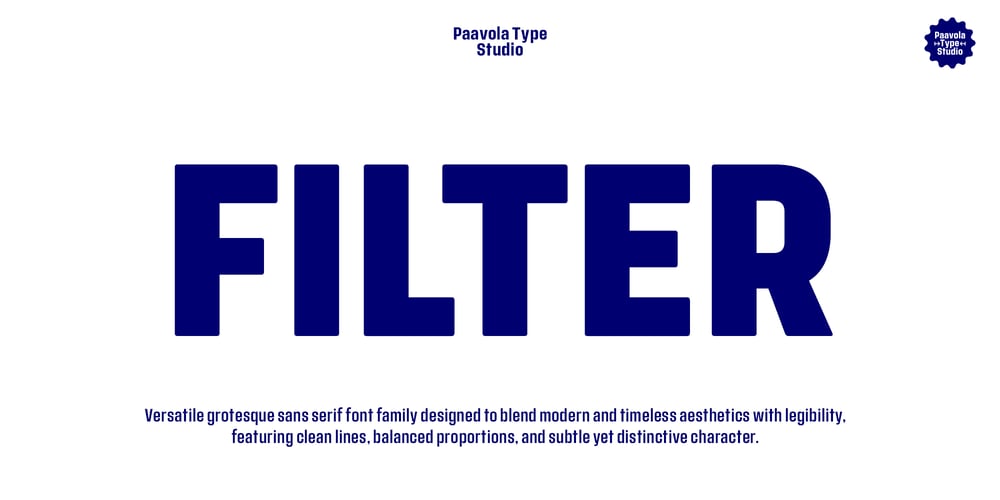
PT Filter Font Family was designed by Jani Paavola and published by Paavola Type Studio. PT Filter contains 30 styles and family package options. PT Filter is a striking and versatile grotesque sans serif font family designed to blend modern aesthetics with timeless legibility. Perfect for a wide range of design projects, PT Filter stands out with its clean lines, balanced proportions, and subtle yet distinctive character. PT Filter features a streamlined, geometric structure that offers a contemporary look, ideal for digital and print media.With multiple weights and widths, PT Filter adapts effortlessly to various applications, from bold headlines to readable body text.The font maintains excellent readability at all sizes, making it perfect for user interfaces, signage, and branding.PT Filter draws inspiration from the classic grotesque typefaces of the early 20th century, reimagined with modern design principles. The font balances the mechanical precision of its geometric shapes with organic touches, creating a harmonious and approachable typeface.PT Filter is suitable for various uses:Branding: Create a strong and memorable brand identity with PT Filter’s bold and clean design.Editorial Design: Enhance the aesthetics of magazines, brochures, and books with its versatile styles.Web and App Design: Improve user experience with a highly readable and visually appealing font.Signage and Wayfinding: Ensure clarity and impact in public spaces with PT Filter’s legibility and striking presence.Embrace the future of typography with PT Filter, a font that combines historical roots with modern innovation. Whether you’re working on corporate branding, digital interfaces, or creative print projects, PT Filter provides the perfect balance of form and function.